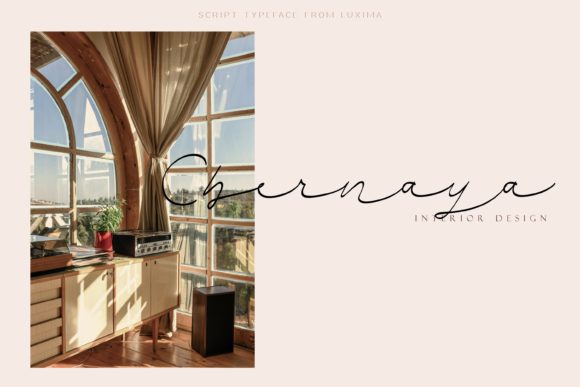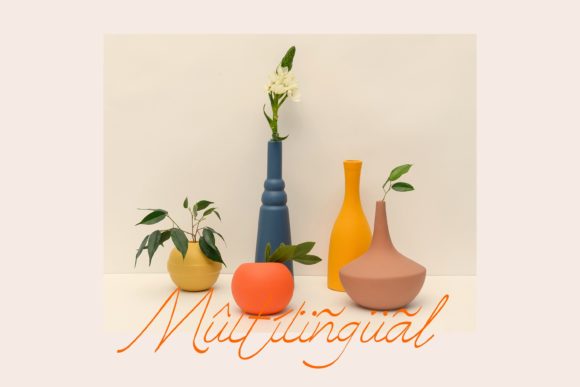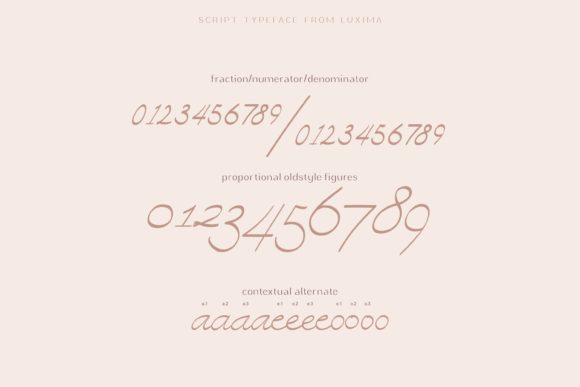
About Zhafir Script Font
Zhafir Script is a delicate, cursive and thin lettered script font, that emanates sophistication and elegance. This font is PUA encoded which means you can access all of the glyphs and swashes with ease!